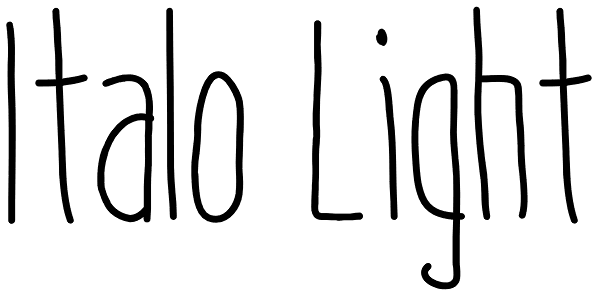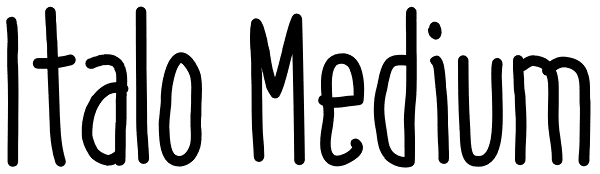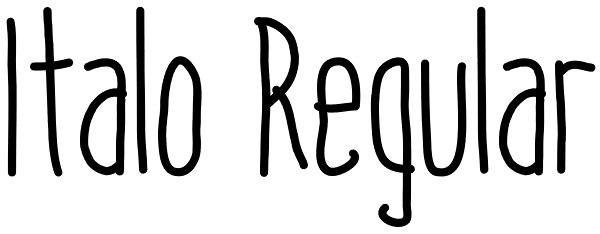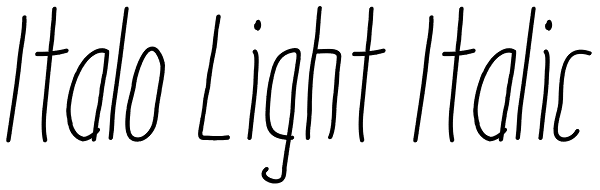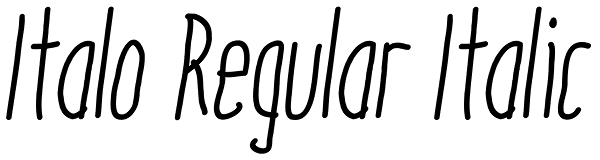
Italo
Italo is a decorative, friendly, san-serif handwritten font. This font will provide an informal, cute look to your work! It can be used for small ammount of text, and display usage because of its glyph quality. Italo offers OpenType features...